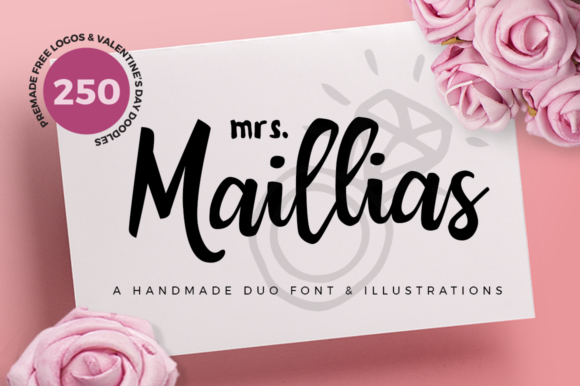
Step into the ethereal realm of Mrs. Maillias Duo, a beautiful handmade script font born from the desire to capture the essence of timeless elegance. Inspired by the delicate penmanship of yesteryears, this font invites you on a journey to create stunning visuals that speak to the heart.
With its graceful curves, flowing lines, and elegant flourishes, Mrs. Maillias is the perfect companion for wedding invitations that evoke a romantic and enchanting atmosphere. Envision your words dancing across the page, telling a love story that will be cherished for years to come.
Unleash your creativity and explore the endless possibilities of Mrs. Maillias in t-shirt designs. Let your imagination soar as you craft unique and eye-catching statements that resonate with your audience. Whether it's a playful quote, an inspiring message, or a bold graphic, Mrs. Maillias will add a touch of sophistication and charm to your designs.
Transform your brand identity with Mrs. Maillias, a font that exudes professionalism and elegance. Craft logos that leave a lasting impression, ones that speak volumes about your company's values and aspirations. The intricate details and refined style of Mrs. Maillias will elevate your brand to new heights, setting you apart from the competition.
Harness the power of Mrs. Maillias to create captivating quotes that resonate with your audience. Let your words flow freely, expressing emotions and ideas with grace and impact. Whether it's a motivational message to inspire, a thought-provoking quote to ponder, or a heartfelt sentiment to warm the soul, Mrs. Maillias will lend its beauty to your words, amplifying their meaning and creating a lasting impact.